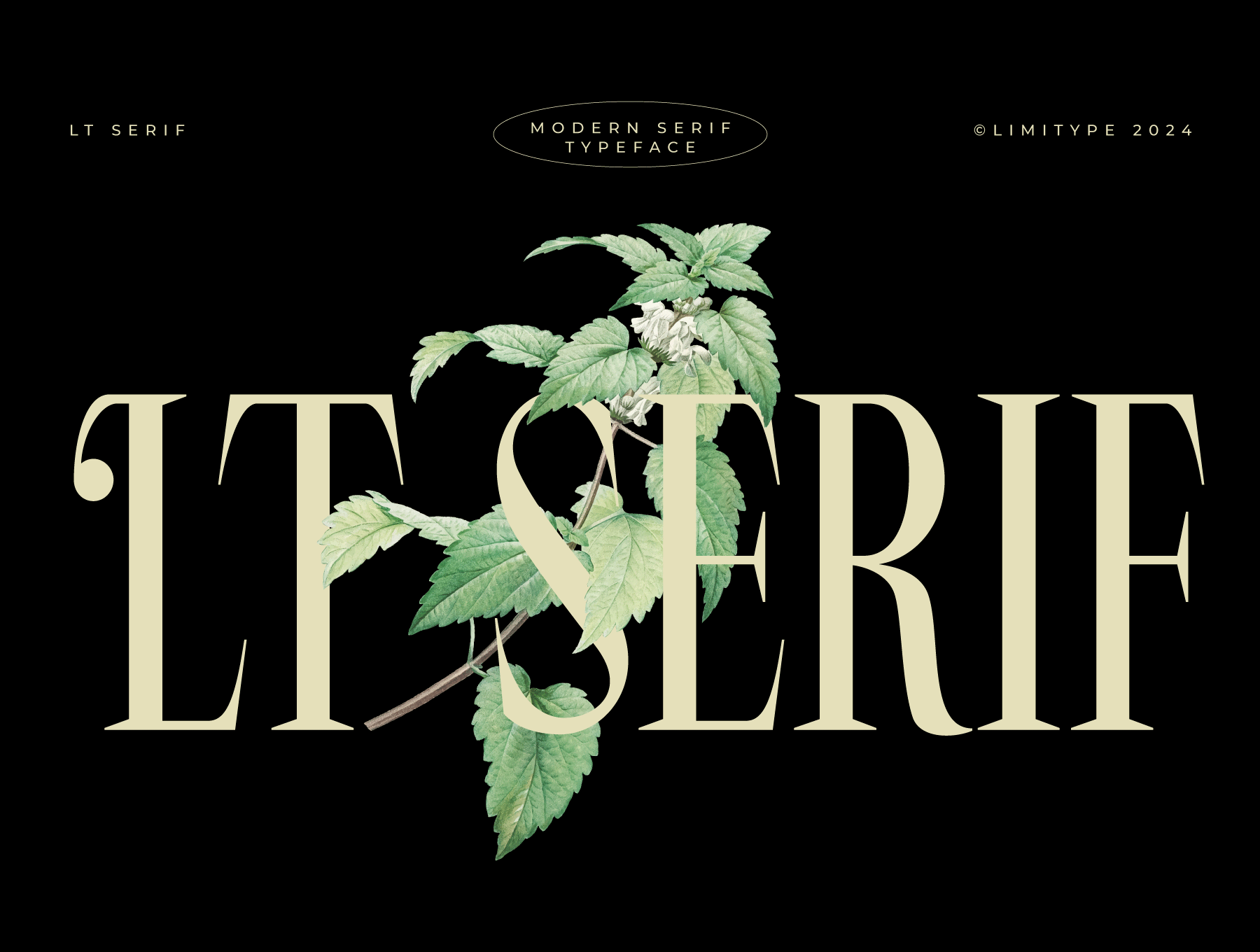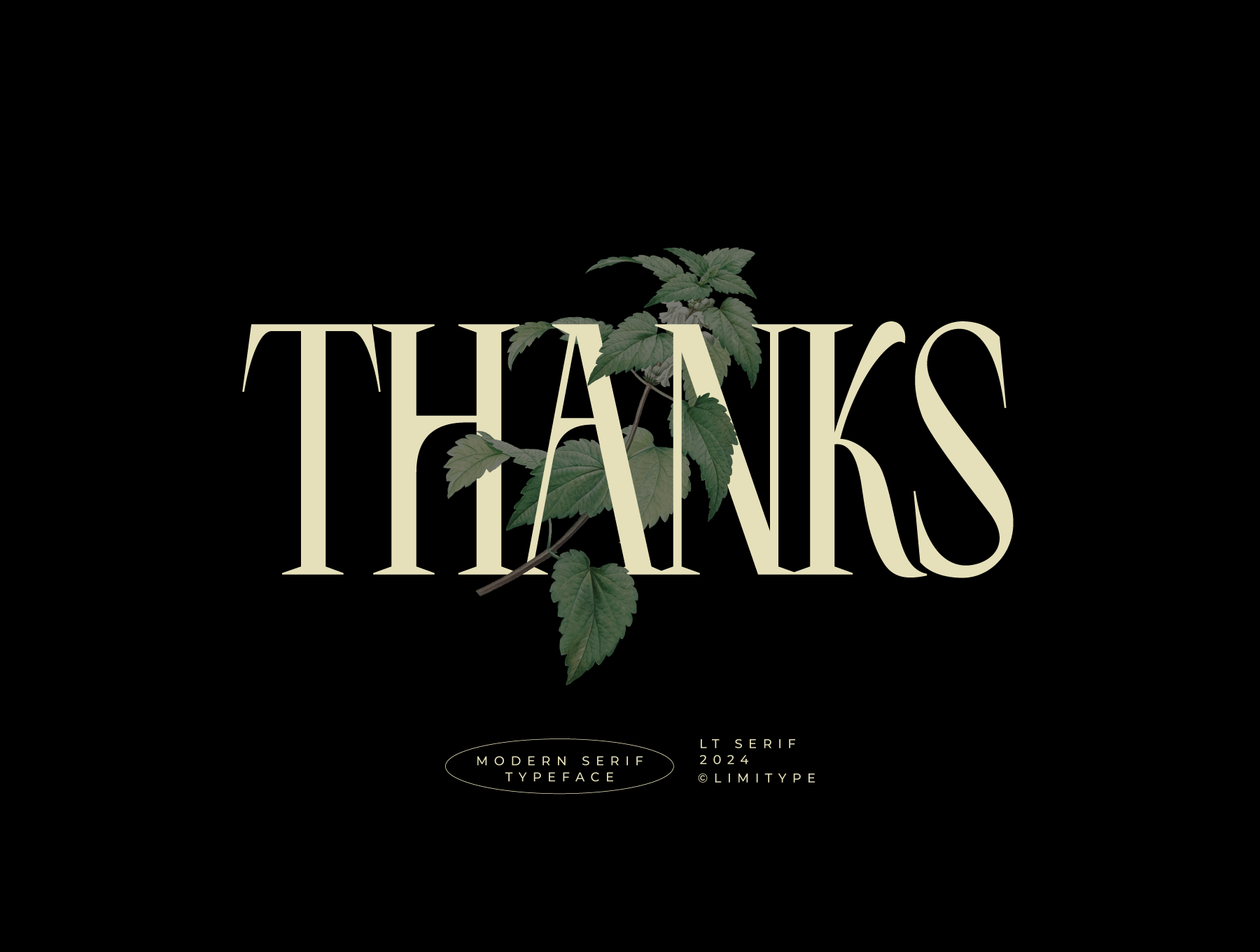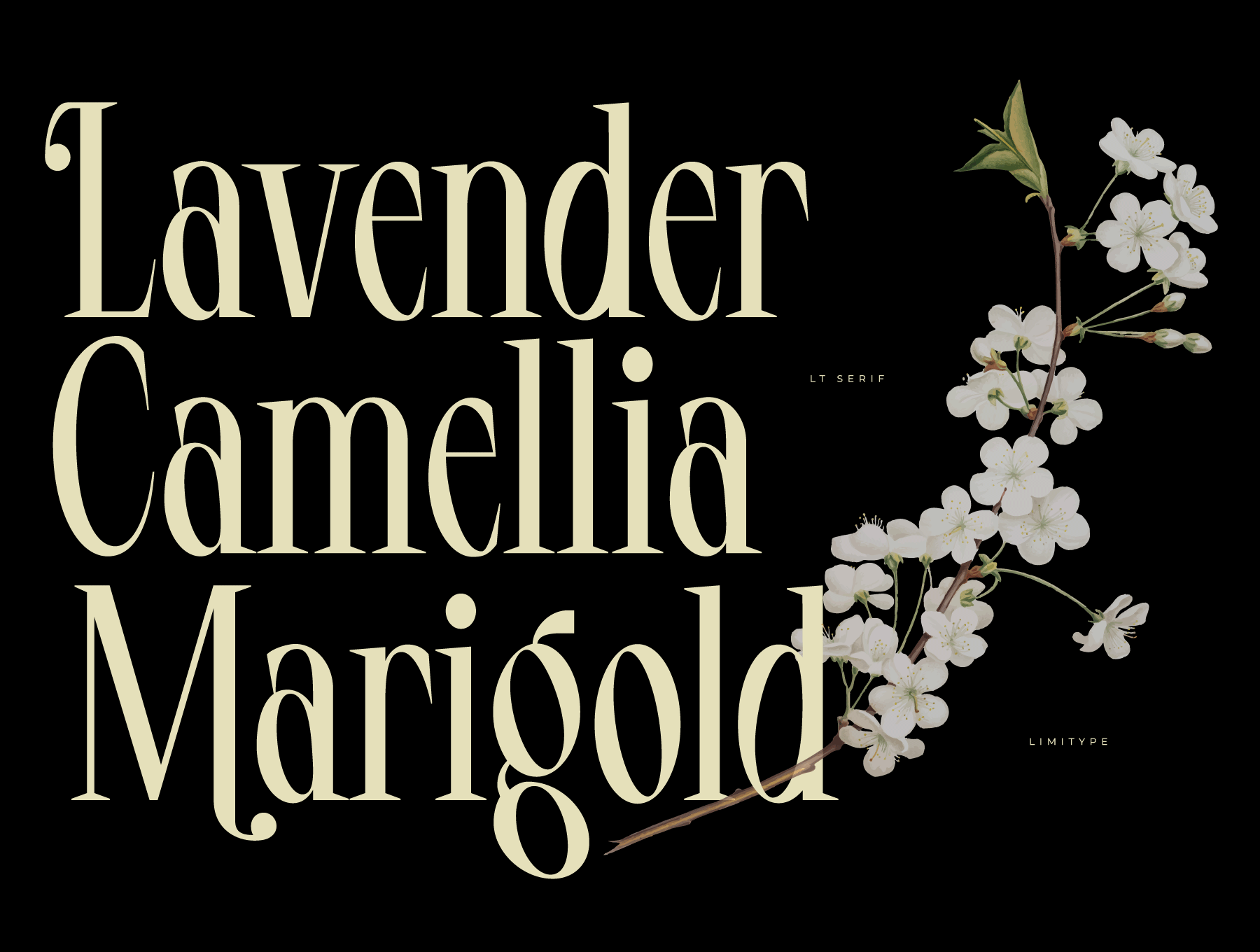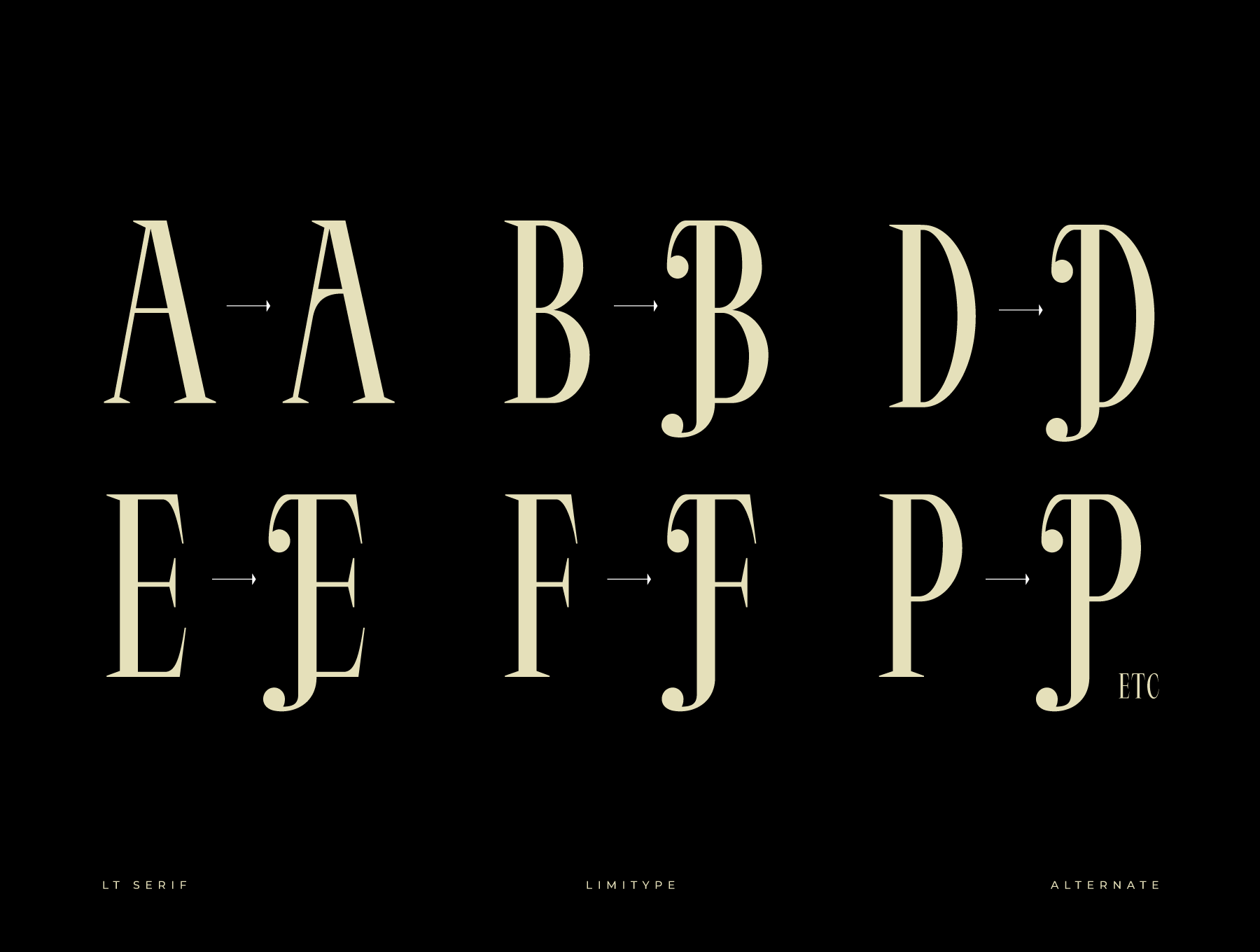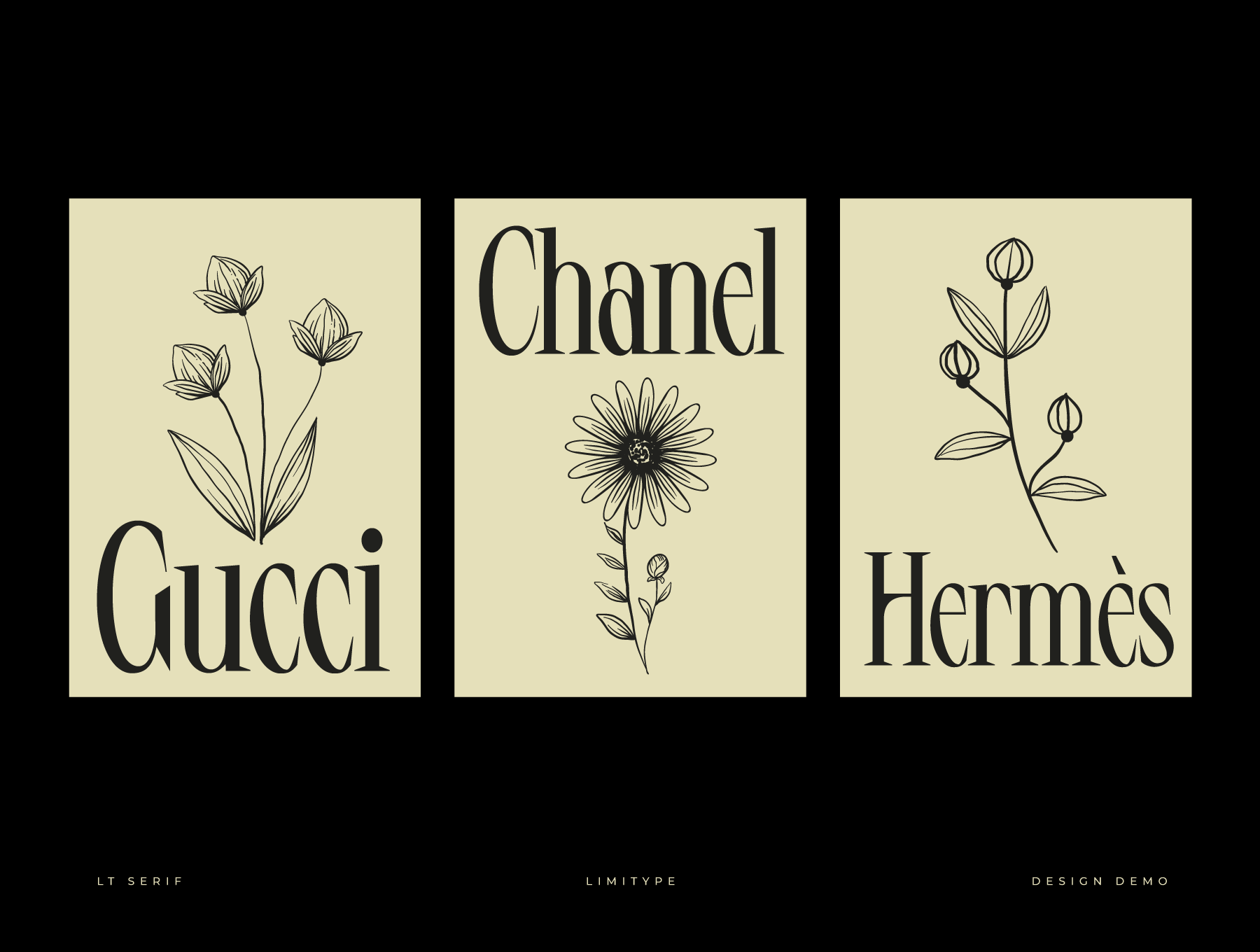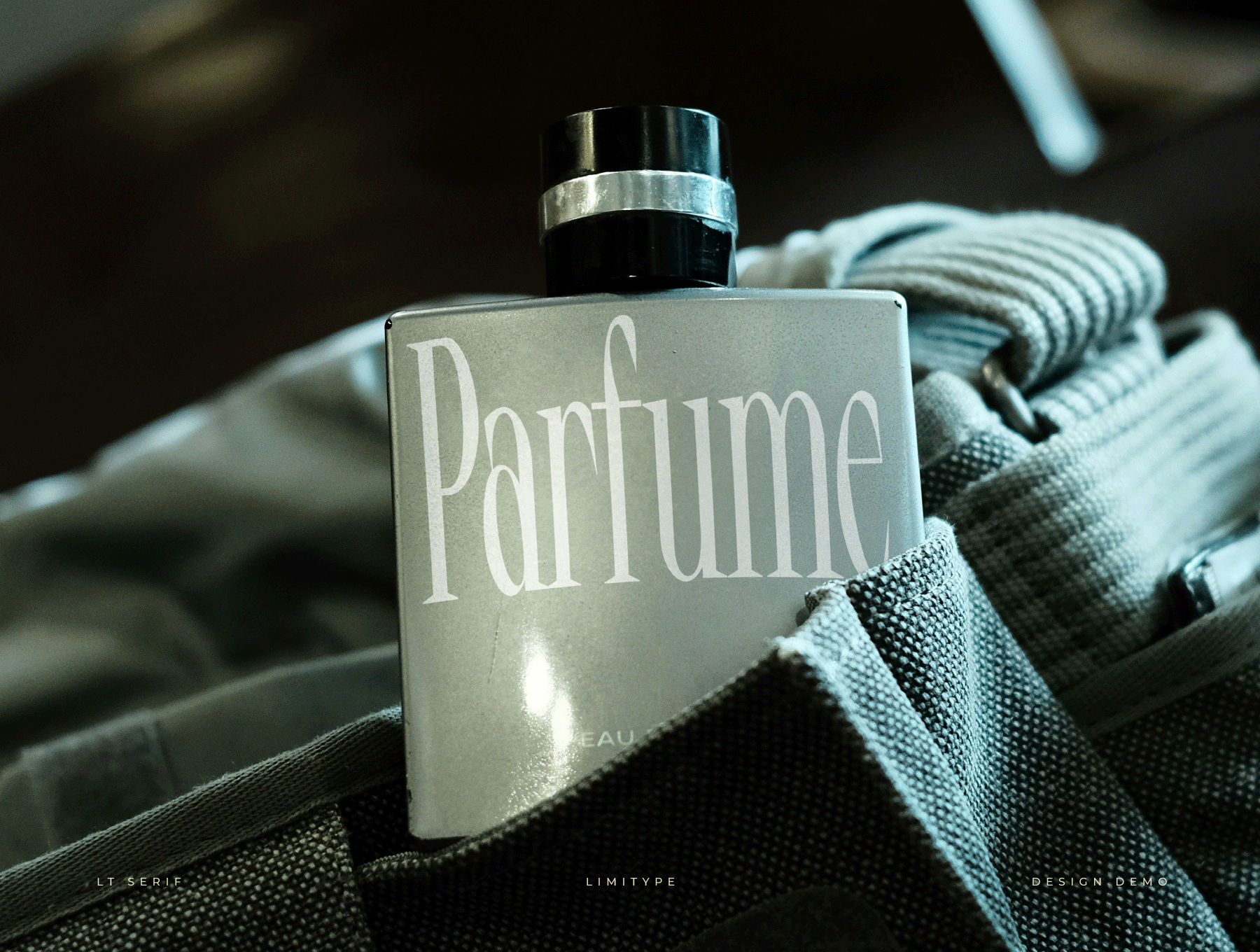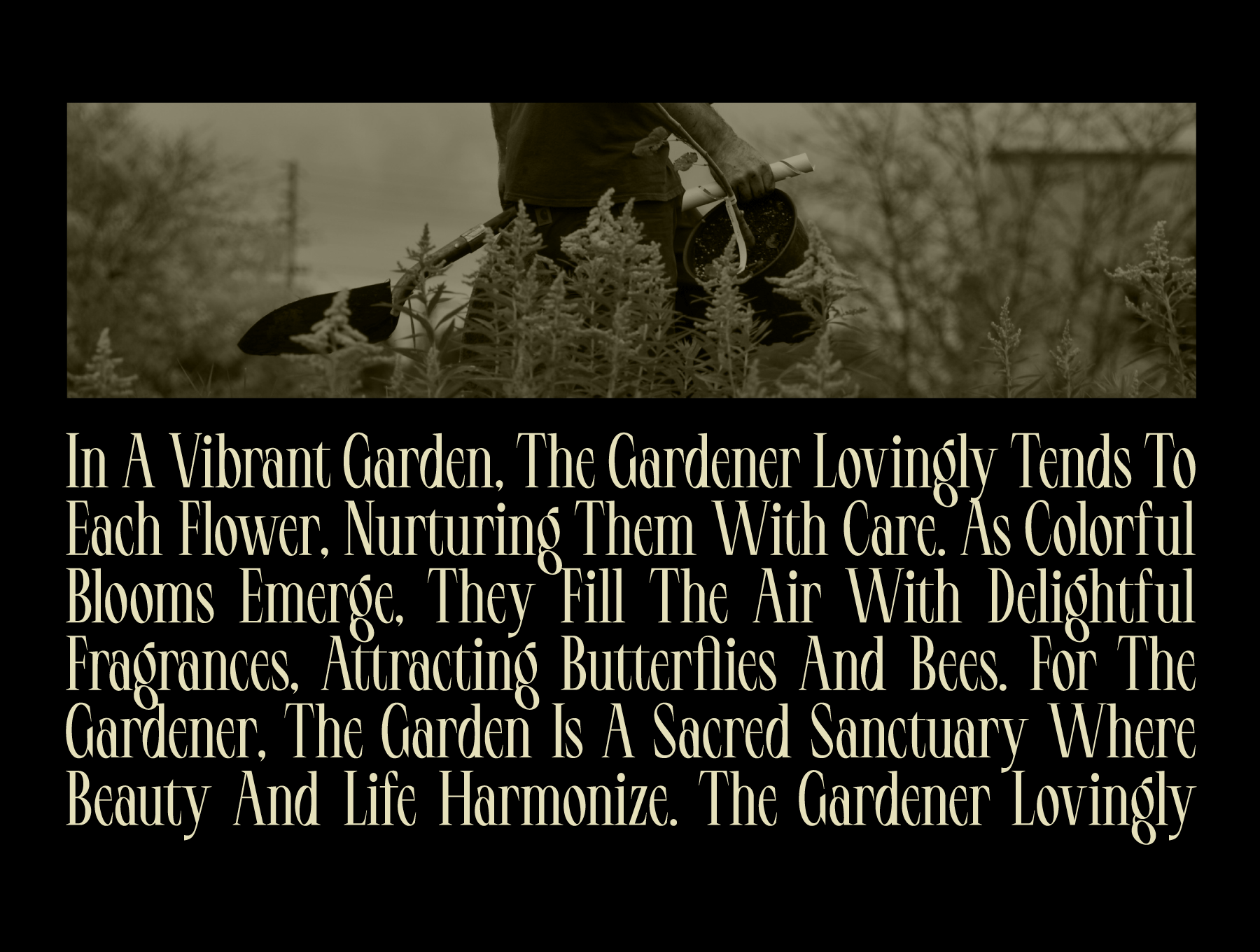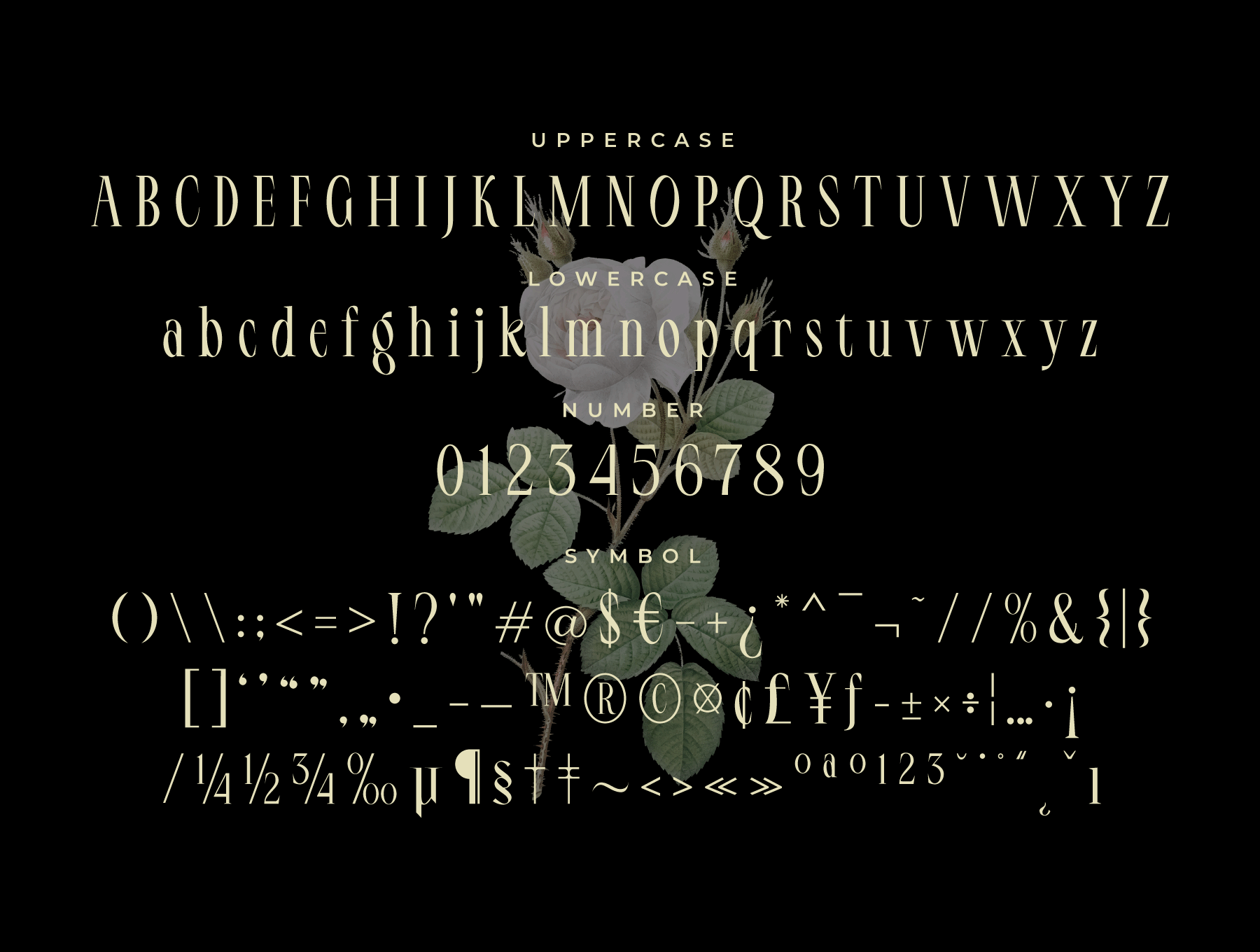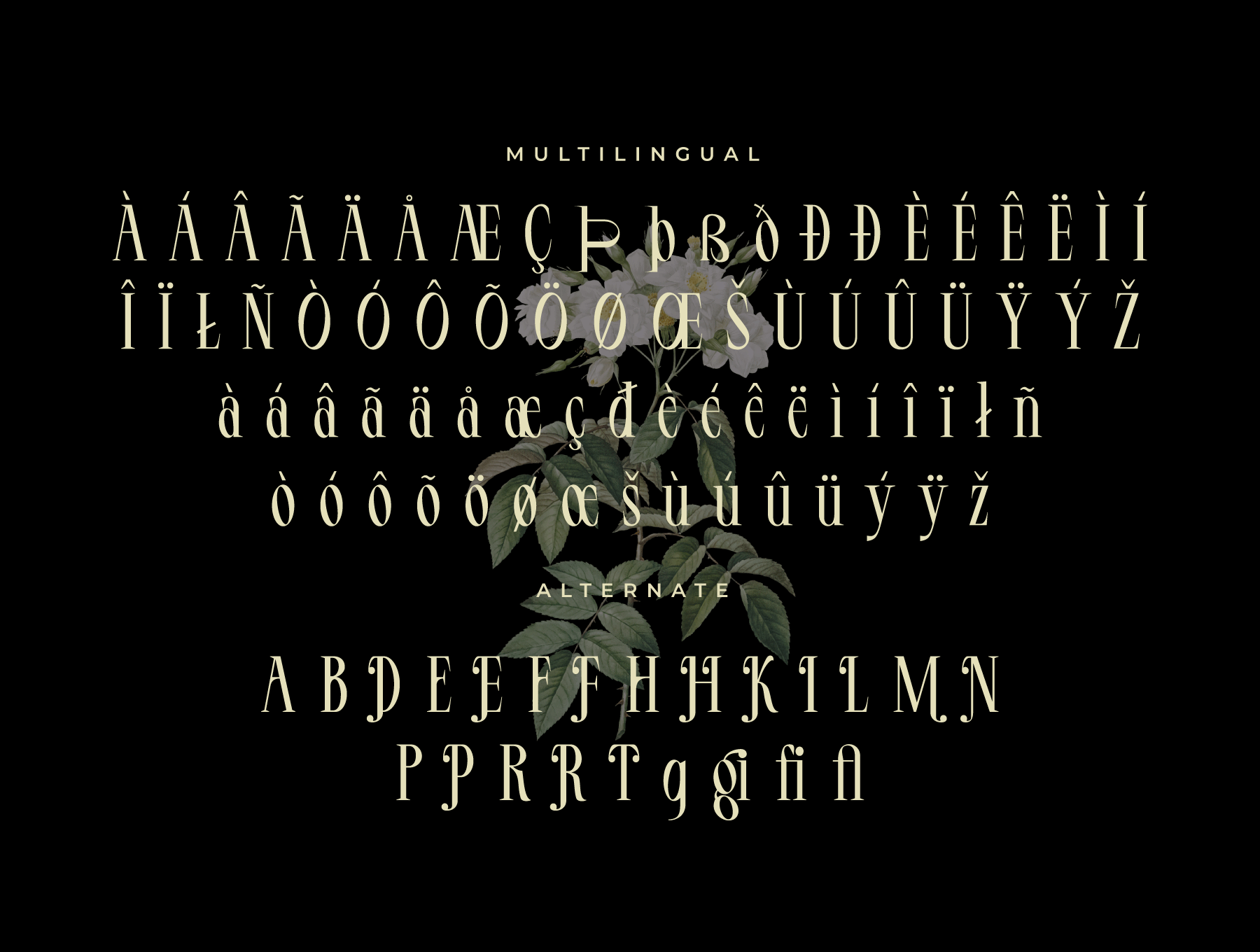
LT Serif Font
Contemporary Serif Typeface
Serif style
Contemporary
Alternative option
Numerals and symbols
LT Serif is a sleek, refined serif typeface with a clean modern style and unique alternate stemmed capitals. It includes uppercase and lowercase letters, numerals, symbols, alternates, and multilingual support. Ideal for elegant editorial titles, books, banners, posters, logos, and more.